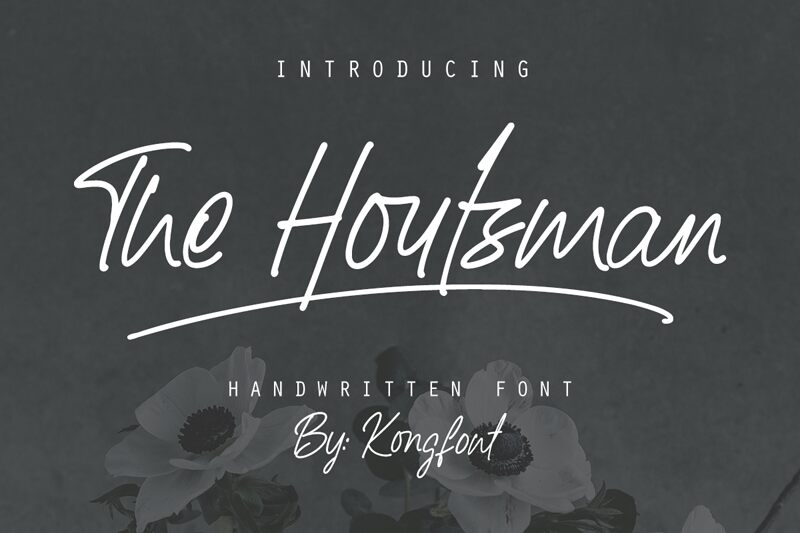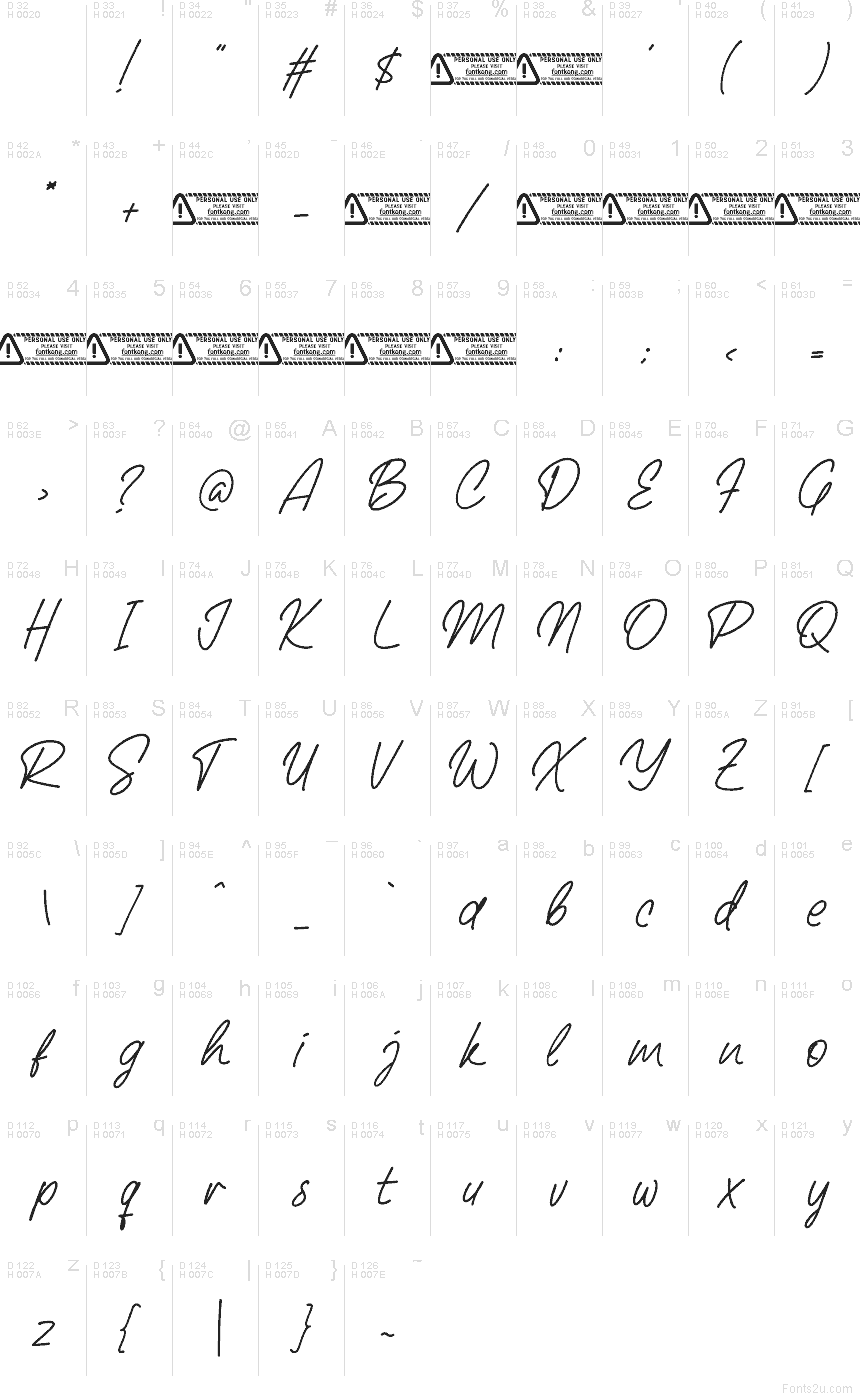
The Houtsman font by Kong Font is a free handwritten font that captures the feel of quick, confident pen strokes without sacrificing clarity. Its letters are lightly slanted, slim, and fluid, giving the sense of a real signature written with a smooth black gel pen. The spacing is tidy and breathable, so even longer words stay legible while still looking personal, stylish, and a little bit intimate.
Using The Houtsman, you can add a signature touch to logos, invitations, social media posts, packaging, quote graphics, and branding for lifestyle or beauty projects. This free font shines when you want something that feels genuinely handwritten but still reads cleanly at smaller sizes. For a polished look, pair The Houtsman with a simple sans serif for body text and let this script handle headlines, names, and short phrases.